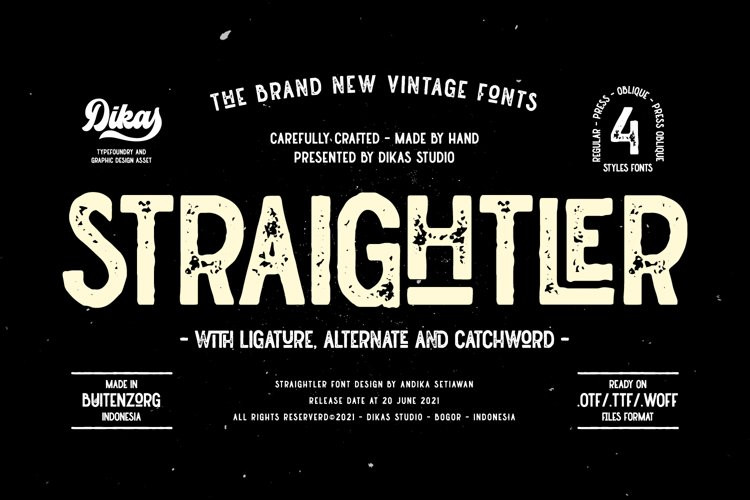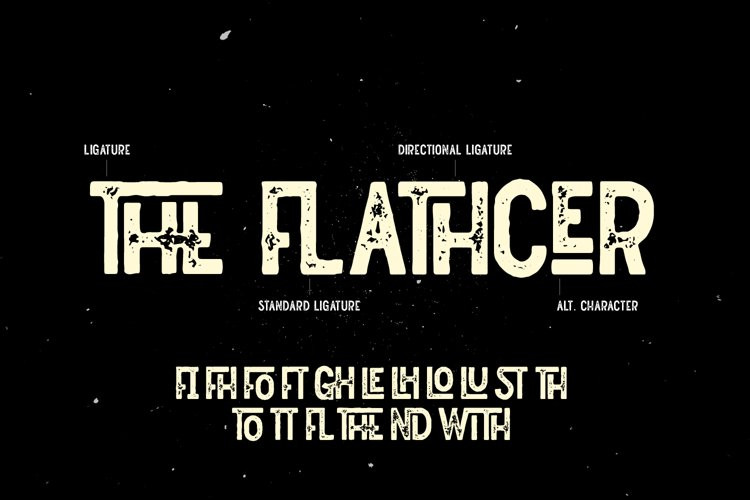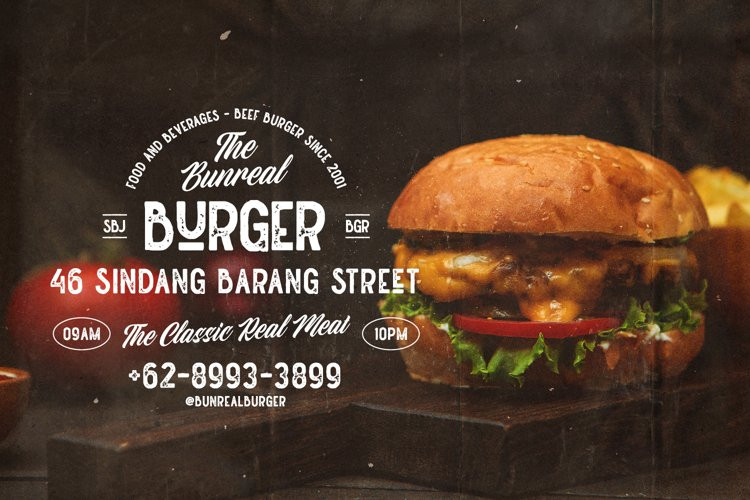
Straightler Press Font
Straightler Press FontStraightler is a display sans serif typeface inspired from letterpress in old signane, they have a verry rough and rust character. Straightler come with four fonts styles regular, press, oblique and oblique press. Straightler basicly is allcaps font but they have some alternate character, ligature and catchword to make your design more stunning. Suitable and applicable to create typography design, branding, logos, product packaging, invitation, qoutes, t-shirt, label badge poster etc.